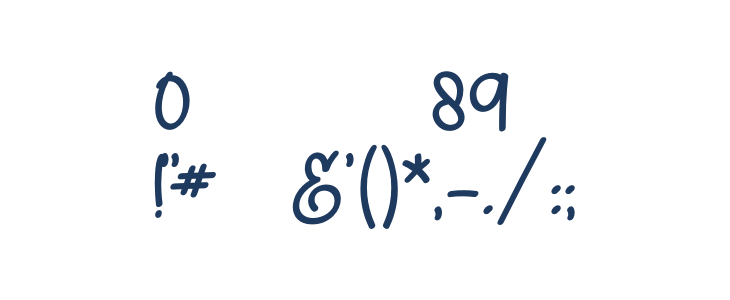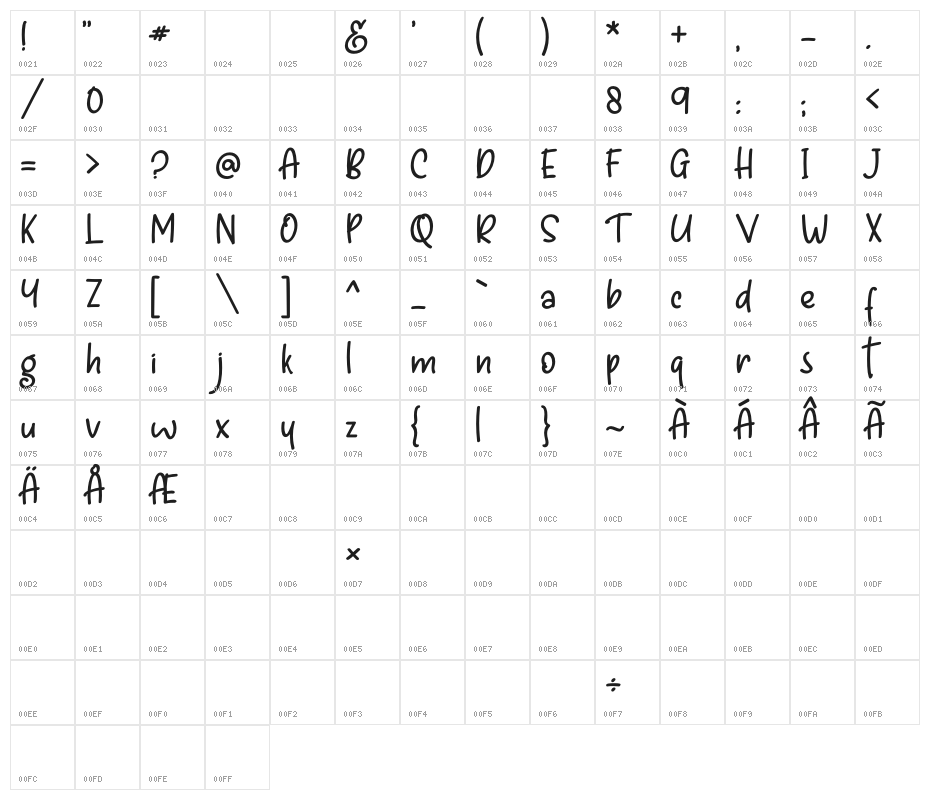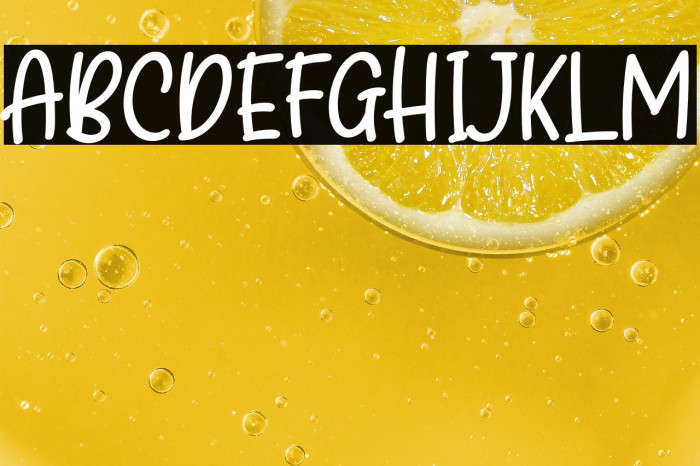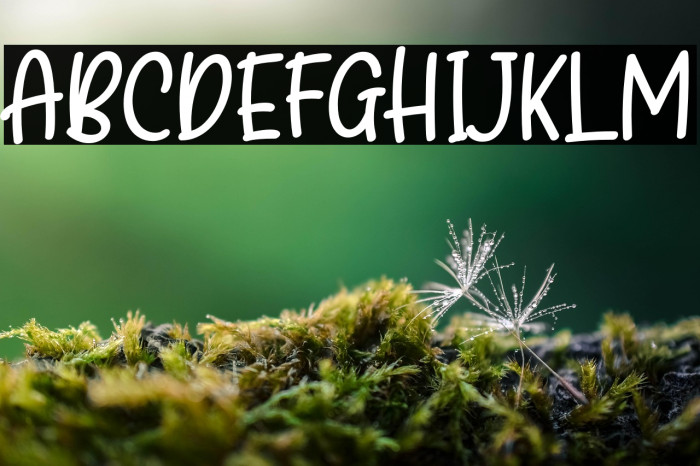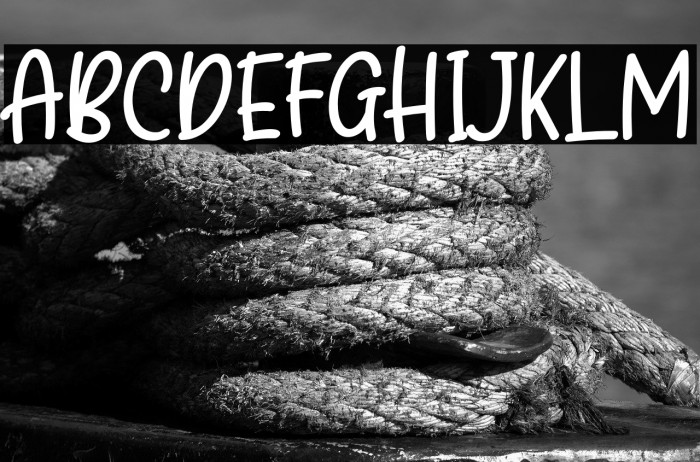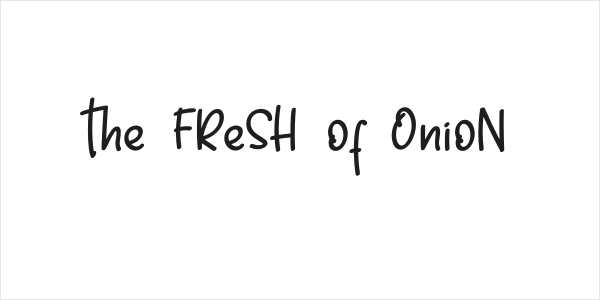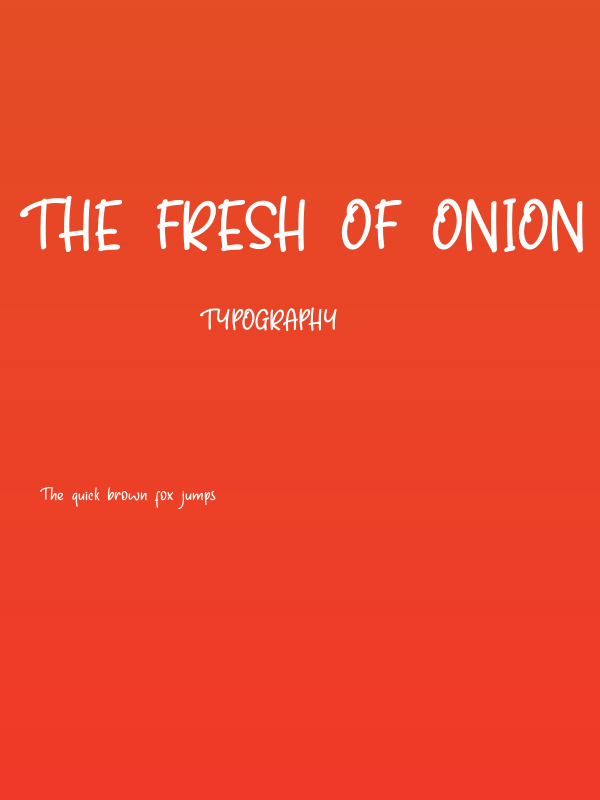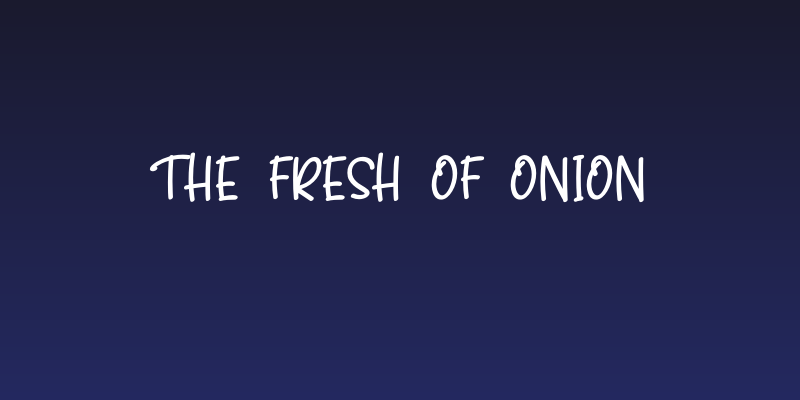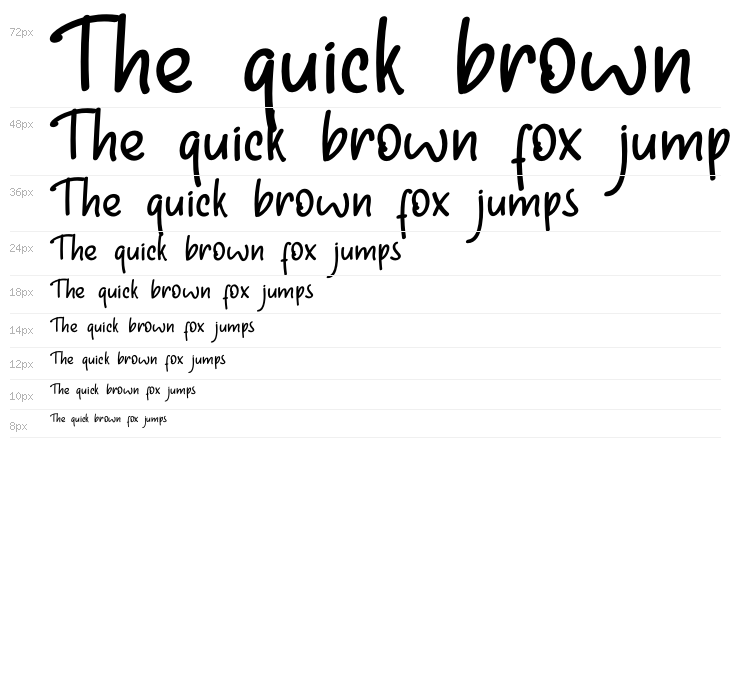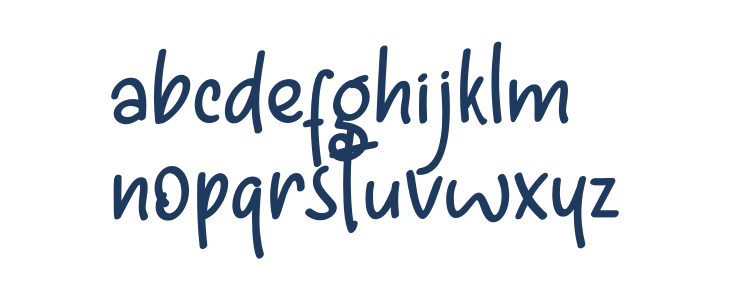
the FReSH of OnioN Font
the FReSH of OnioN Description
This font features a playful and casual handwritten style, characterized by its fluid and dynamic strokes. The letters have a natural, organic feel, with varying stroke widths that add a sense of movement and personality. The uppercase letters are bold and slightly condensed, while the lowercase letters maintain a consistent flow with rounded edges. Numbers and special characters are designed to match the overall aesthetic, ensuring a cohesive look. This font is perfect for projects that require a personal touch or a friendly, approachable vibe.
Overall StyleCasual
Use CaseLogos, Headlines, Social Media
Proposed ProjectsIdeal for greeting cards, invitations, personal branding, and social media graphics.